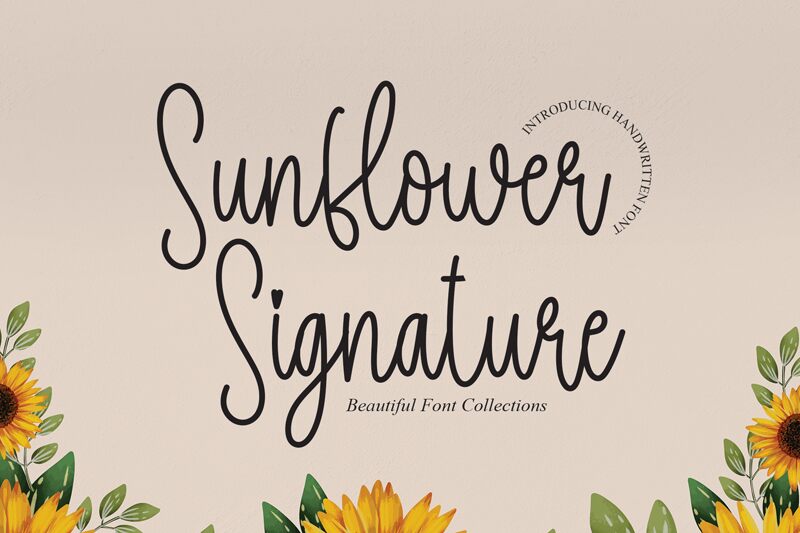
Sunflower Signature
Say hello to Sunflower Signature - the perfect font for adding a touch of personality to any project. Created by the talented designer scratchones, this handwritten signature-style font is light and condensed, making it ideal for designs that require a delicate touch. Its charmingly cute appearance makes it suitable for a range of projects, from wedding invitations and greeting cards to social media posts and branding materials. So if you're looking for a font that exudes warmth, friendliness, and charm - look no further than Sunflower Signature!
the latest style letters are perfect for wall displays, wedding invitations, social media post logos, advertisements, product packaging, product designs, labels, photography, watermarks, invitations, stationery, and any project that requires taste handwriting.